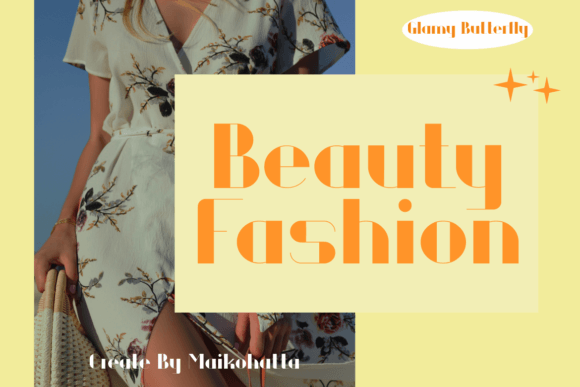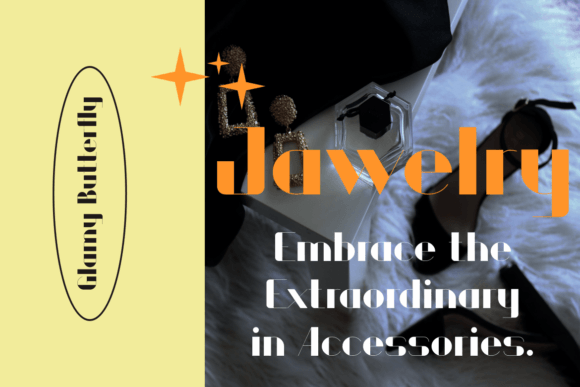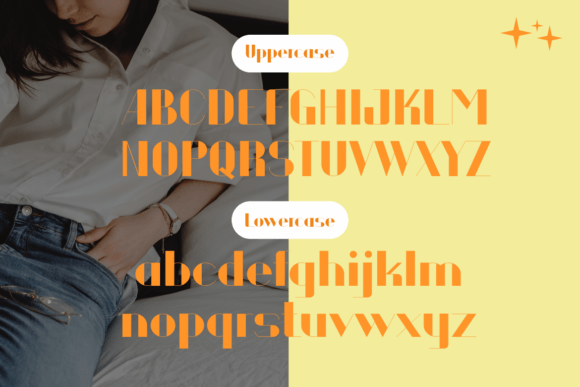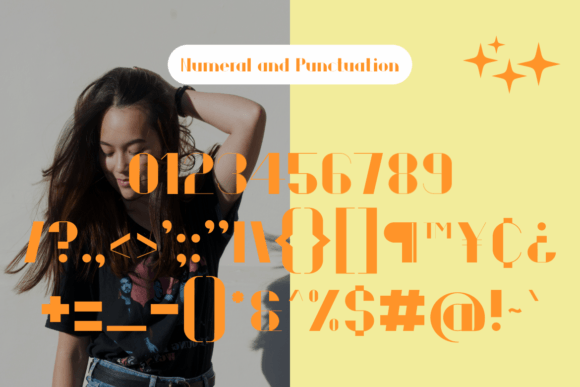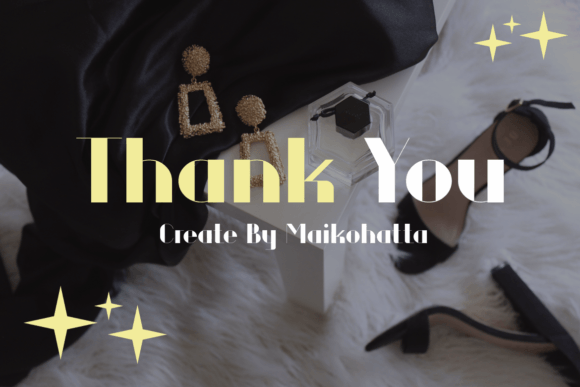
Glamy Butterfly Font: Elevate Your Designs with Elegance and Sophistication
In the world of graphic design and modern typography, the right font can make all the difference. It’s not just about conveying a message; it’s about doing so with style, elegance, and a touch of personality. This is where the Glamy Butterfly Font comes into play, offering a versatile and visually appealing solution for designers and crafters alike. This font is a very flexible choice and can be used in a variety of design contexts. Its ability to provide a clean, professional, contemporary look and its simplicity and visual appeal make this font good for use in the world of graphic design and modern typography.
Unleash Your Creativity with Glamy Butterfly Font
The Glamy Butterfly Font stands out for its unique blend of elegance and modernity. Its design is carefully crafted to meet the needs of contemporary designers who are looking for a font that can add a touch of sophistication to their projects. Whether you’re working on a branding project, a website design, or crafting beautiful printable art, this font proves to be an excellent choice. Its versatility is one of its strongest assets, allowing it to seamlessly integrate into various design contexts.
Key Features of Glamy Butterfly Font
- Clean and Professional Look: The Glamy Butterfly Font boasts a clean and professional appearance, making it perfect for projects that require a touch of elegance and sophistication.
- Contemporary Design: With its modern design, this font is well-suited for projects that demand a contemporary look and feel.
- Simplicity and Visual Appeal: The font’s simplicity is one of its key strengths, offering a visual appeal that can enhance a wide range of design projects.
- Versatility: Its versatility is perhaps its most significant advantage, allowing designers to use it across different projects and applications.
Applications of Glamy Butterfly Font
The applications of the Glamy Butterfly Font are vast and varied. Here are some of the areas where this font can truly shine:
- Branding and Logo Design: Create memorable and impactful brand identities with a font that exudes professionalism and elegance.
- Website Design: Enhance the user experience with a clean and modern font that ensures readability and style.
- Printable Art and Crafts: Add a touch of sophistication to your printable art, planners, and craft projects with this beautiful font.
- Typography Projects: For designers focused on typography, this font offers a great option for creating visually appealing text-based projects.
Why Choose Glamy Butterfly Font?
Choosing the right font for your project can be daunting, given the numerous options available. However, the Glamy Butterfly Font stands out for several reasons:
- Ease of Use: Its simplicity ensures that it’s easy to use, even for those who are new to design.
- High Readability: The font maintains high readability across various sizes and applications.
- Unique Style: It offers a unique style that can set your project apart from others.
The Glamy Butterfly Font is a remarkable addition to the world of typography and graphic design. Its flexibility, combined with its clean, professional, and contemporary look, makes it an excellent choice for a wide range of projects. Whether you’re a seasoned designer or a crafter looking to add a touch of elegance to your work, this font is sure to meet your needs. With its simplicity, visual appeal, and versatility, the Glamy Butterfly Font is poised to become a favorite among designers and crafters alike.